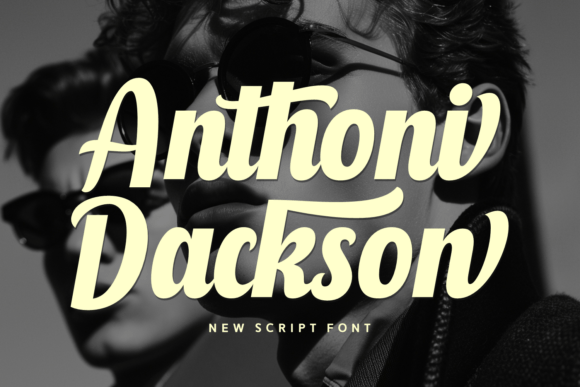
As a designer, you’ve probably found yourself staring at a blank canvas, trying to come up with the perfect font to bring your vision to life. And then, it happens – a spark of inspiration strikes, and you see it: the perfect script font that sets your design apart from the rest. For many, that font is the Anthoni Dackson Font, a stunning script font that adds a touch of elegance and sophistication to any project.
This beautiful font is designed to make a statement, with its flowing letters and strong lines creating a unique and eye-catching look. Whether you’re creating an invitation, a logo, or just want to add some flair to your next project, the Anthoni Dackson Font is the perfect choice. Its versatility and charm make it a valuable asset for any designer looking to add a touch of personality to their work.
Anthoni Dackson Font Key Features
- Font Family: Anthoni Dackson Font
- Unique Characteristics: Features a unique blend of modern and vintage elements, with intricate details and ornate flourishes, making it ideal for creating elegant and sophisticated designs
Anthoni Dackson Font Review
As a designer, I was excited to try out the Anthoni Dackson Font. Here’s my honest review:
- The font’s unique blend of modern and vintage elements makes it perfect for creating a unique visual identity.
- The Anthoni Dackson Font has a wide range of weights and styles, making it versatile and easy to use in various design projects.
- The font’s legibility is excellent, making it easy to read even in smaller sizes.
- The font’s aesthetic may not appeal to everyone, and some users may find it too busy or ornate.
- The font’s spacing and kerning can be inconsistent at times, which may require manual adjustments in some design projects.
Overall, I think the Anthoni Dackson Font is a great addition to any designer’s toolkit. While it may have some limitations, its unique style and versatility make it a great choice for designers who want to add some personality to their projects. With a little bit of creativity and adjustment, the Anthoni Dackson Font can be a powerful tool for creating stunning designs.
For best results, use Anthoni Dackson Font for headings and titles to add a touch of elegance to your designs.
Use Anthoni Dackson Font to create eye-catching titles, headings, and captions in your designs.
Use Anthoni Dackson Font to add a touch of sophistication to your presentations and documents.
Anthoni Dackson Font is ideal for:
- Editorials and magazine articles
Remember to use Anthoni Dackson Font in moderation to avoid overwhelming your designs.